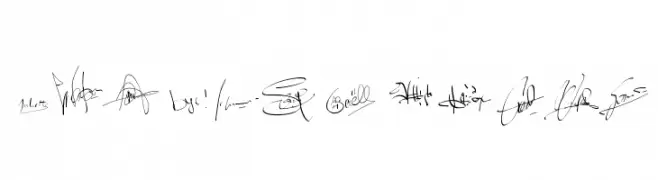
A fluid and elegant script font with a relaxed, tropical vibe.
A fluid, cursive-style font with a personal and artistic flair.
An elegant, cursive font with fluid, interconnected strokes.
An elegant, flowing script font with a classic calligraphic style.
A sophisticated cursive script with a natural, flowing style.
A cursive, handwritten font with elegant and fluid strokes.
An elegant, cursive script font with a sophisticated, handwritten style.
A sophisticated, elegant handwritten script with flowing cursive strokes.
A sophisticated, elegant handwritten font with fluid, flowing strokes.
A flowing, cursive font with elegant, interconnected letters.
An elegant, flowing script font with interconnected, cursive strokes.
A graceful script font with fluid, cursive strokes and connected characters.
A sophisticated cursive script font with elegant, flowing lines.
A sophisticated script font with flowing, cursive letterforms.
A modern, elegant handwritten font with fluid, cursive letterforms.
An elegant script font with flowing lines and delicate curves.
An elegant, cursive handwritten font with smooth, flowing lines.
A graceful and fluid script font with interconnected, cursive letters.
A sophisticated, elegant handwritten font with fluid, continuous strokes.
A stylish and elegant handwritten script font with flowing, connected letterforms.
A flowing, elegant script font with a modern, handwritten style.
A fluid, handwritten-style font with a personal and expressive touch.
A dynamic, handwritten font with a casual and fluid style.
A dynamic, brush-style script font with a personal, handwritten feel.
A modern, elegant handwritten font with fluid, continuous strokes and a dynamic slant.
A modern, elegant handwritten font with fluid strokes and a sophisticated style.
A modern, elegant handwritten font with fluid, continuous strokes.
A sophisticated script font with elegant loops and swirls, perfect for luxurious designs.